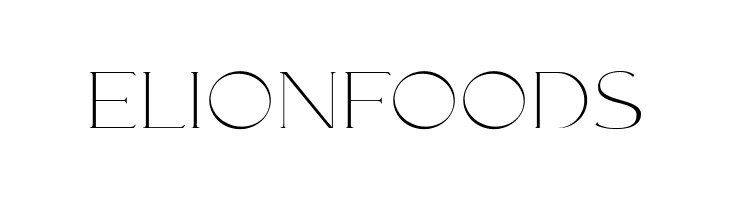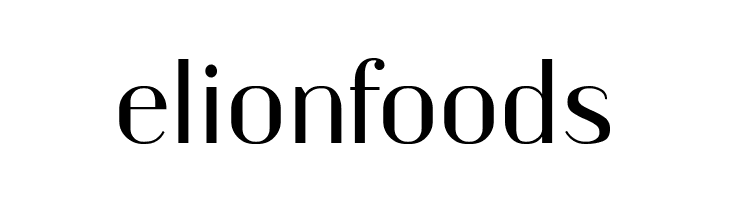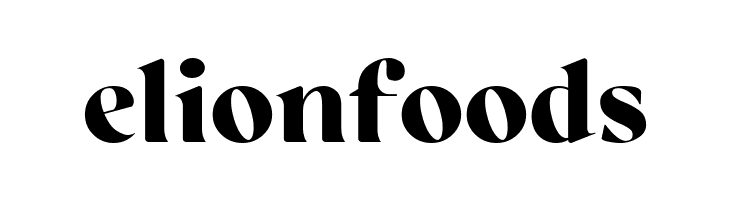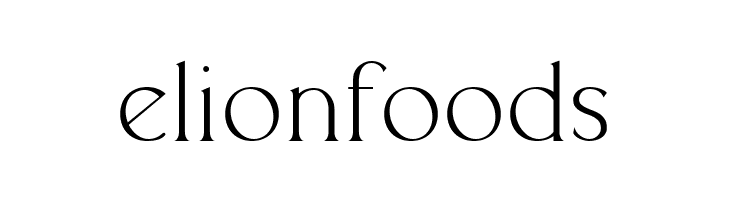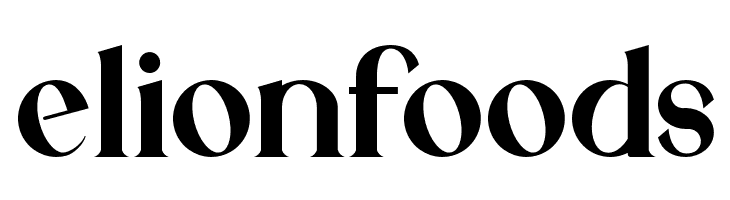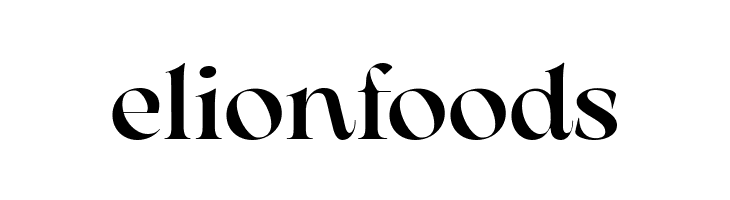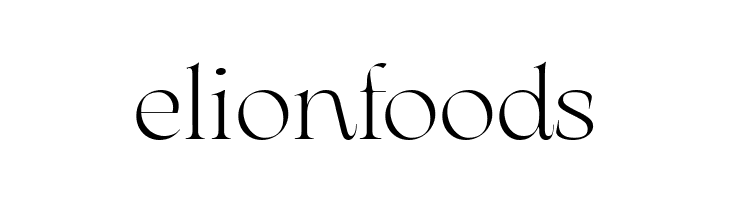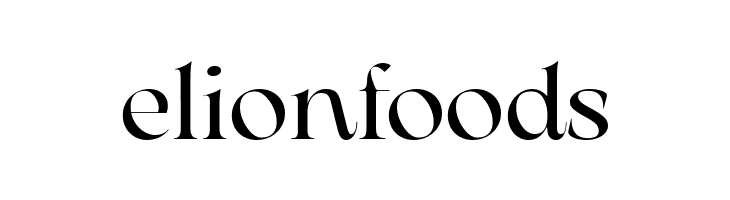
A modern, elegant font with high contrast and refined design.
A modern, high-contrast font with sleek, elegant strokes.
A bold, high-contrast serif font with elegant and sophisticated styling.
An elegant, high-contrast typeface with a modern and sophisticated design.
A high-contrast serif font with elegant, pronounced serifs and a modern aesthetic.
An elegant italic serif font with high contrast and flowing curves.
A high-contrast serif font with elegant, sharp serifs and a modern aesthetic.
A high-contrast, elegant serif font with refined strokes and classic flair.
A high-contrast serif font with elegant, sharp serifs and a modern classic style.
A bold, high-contrast serif font with a dramatic and elegant style.